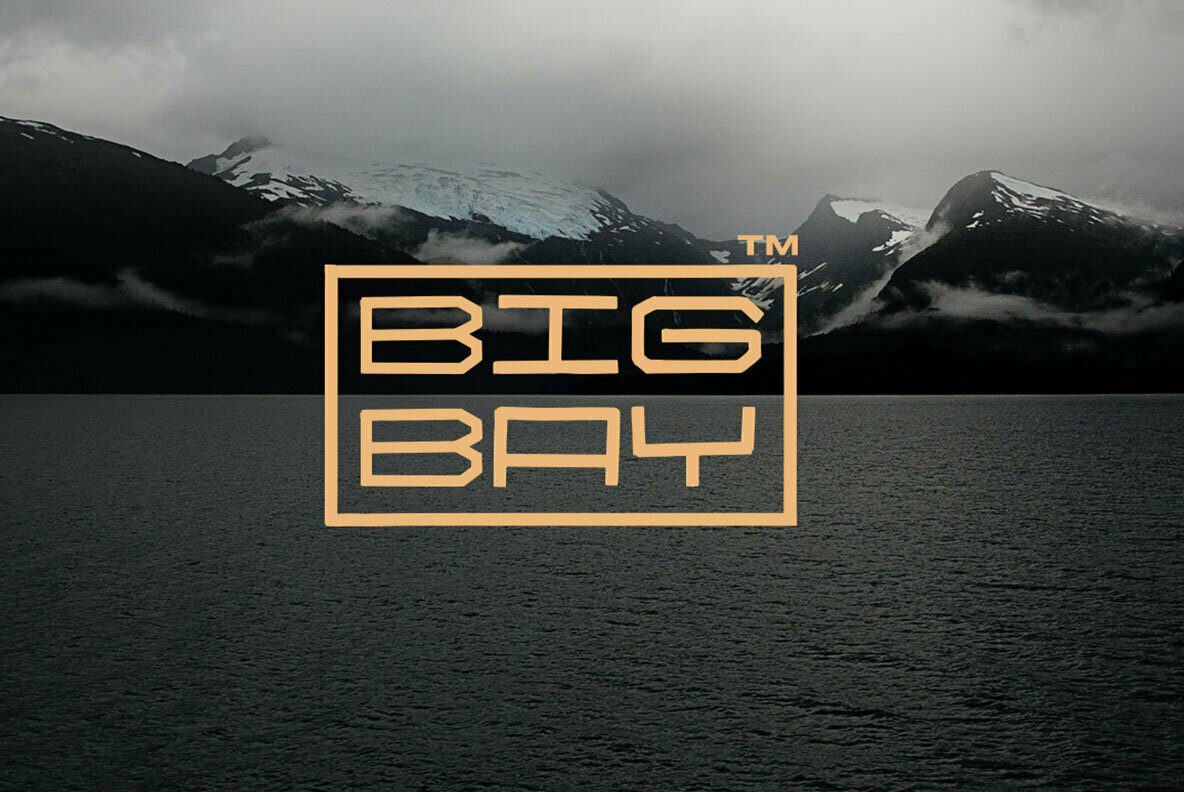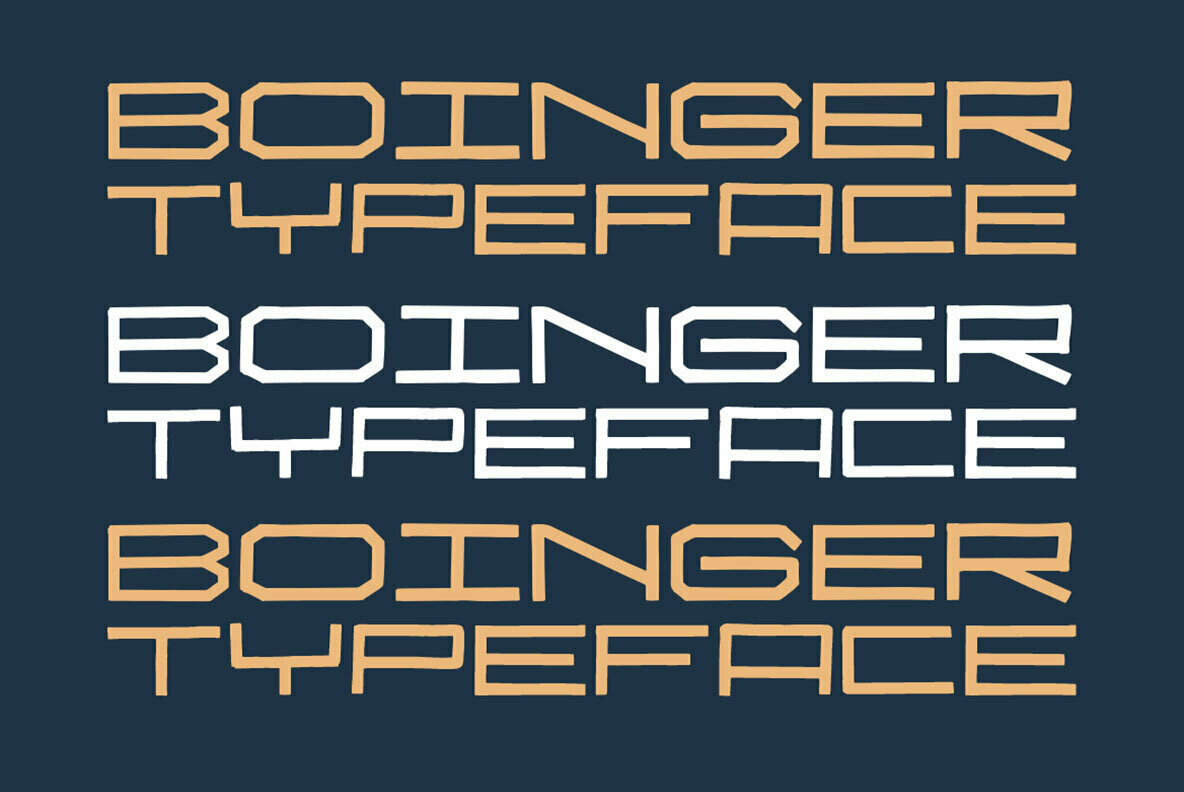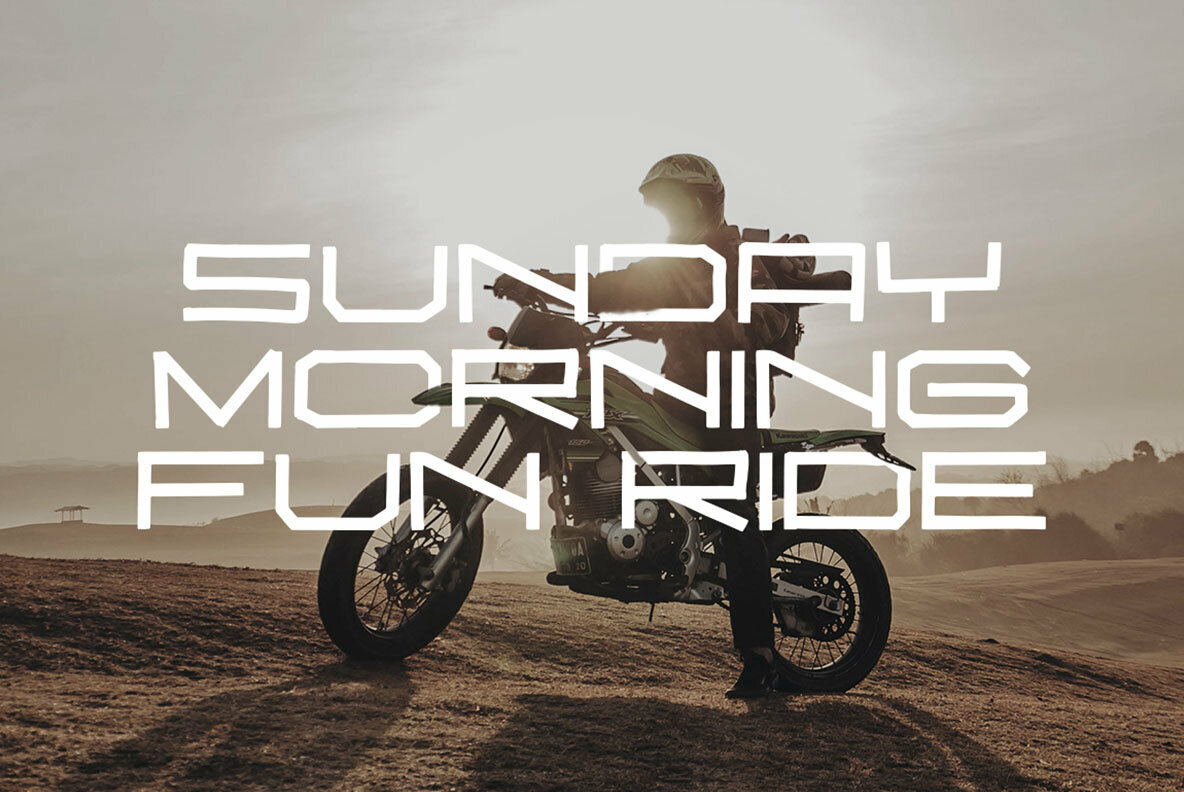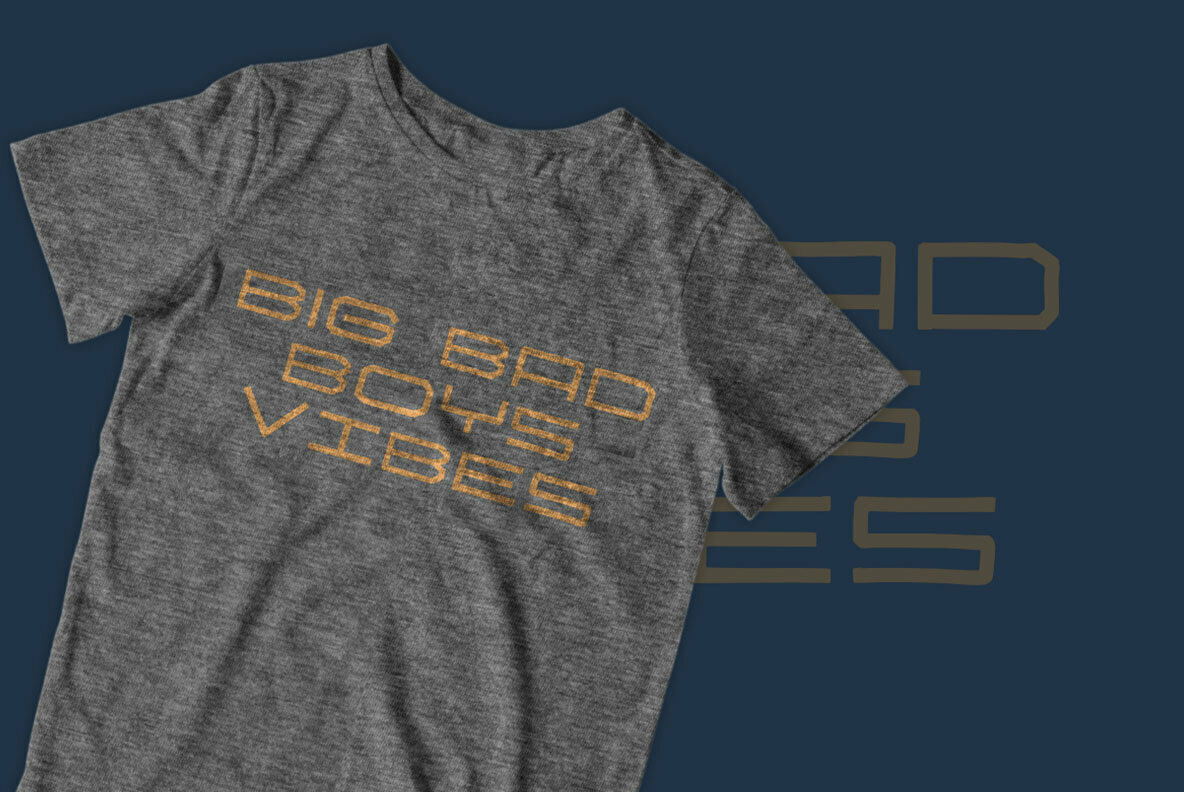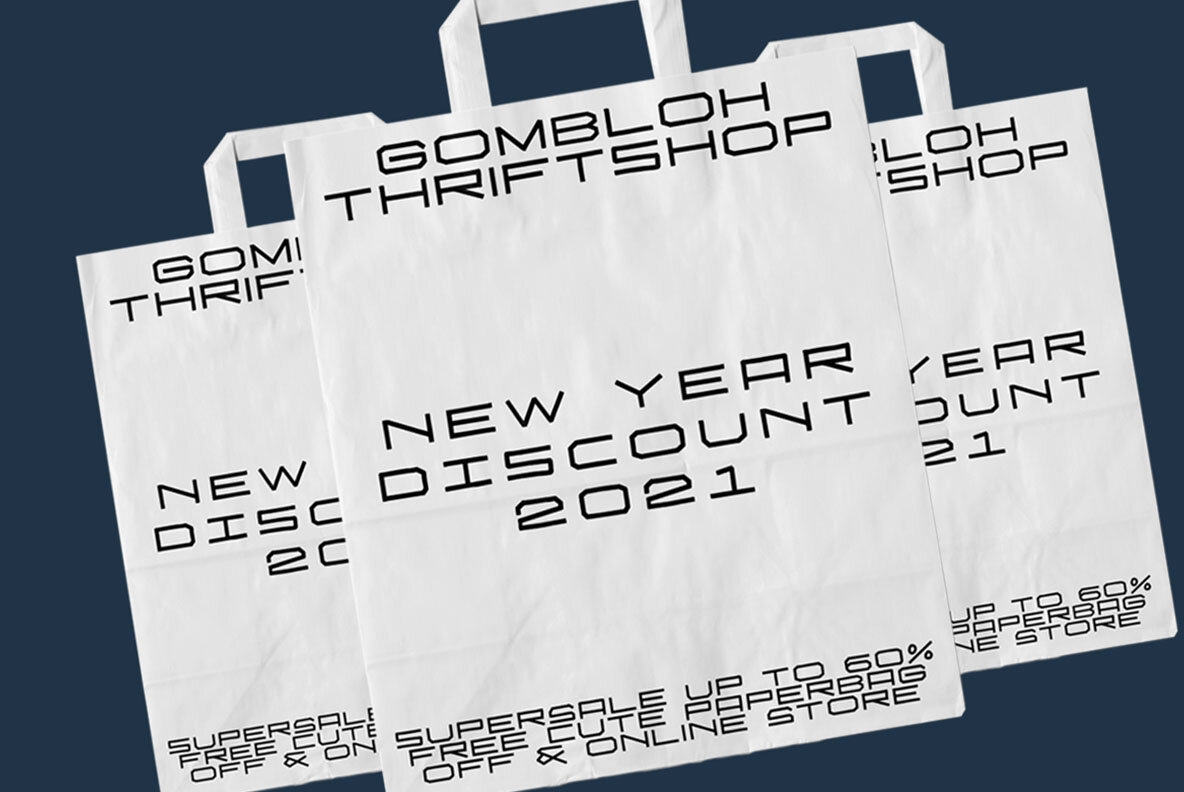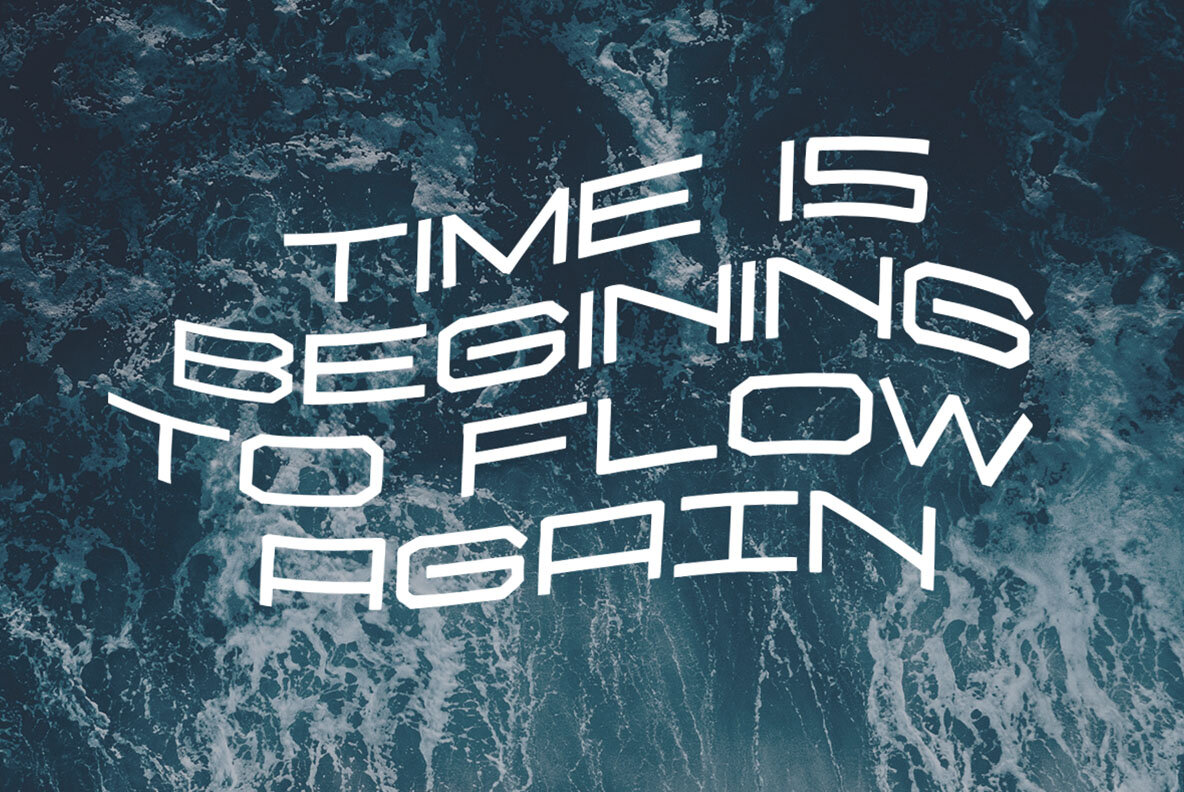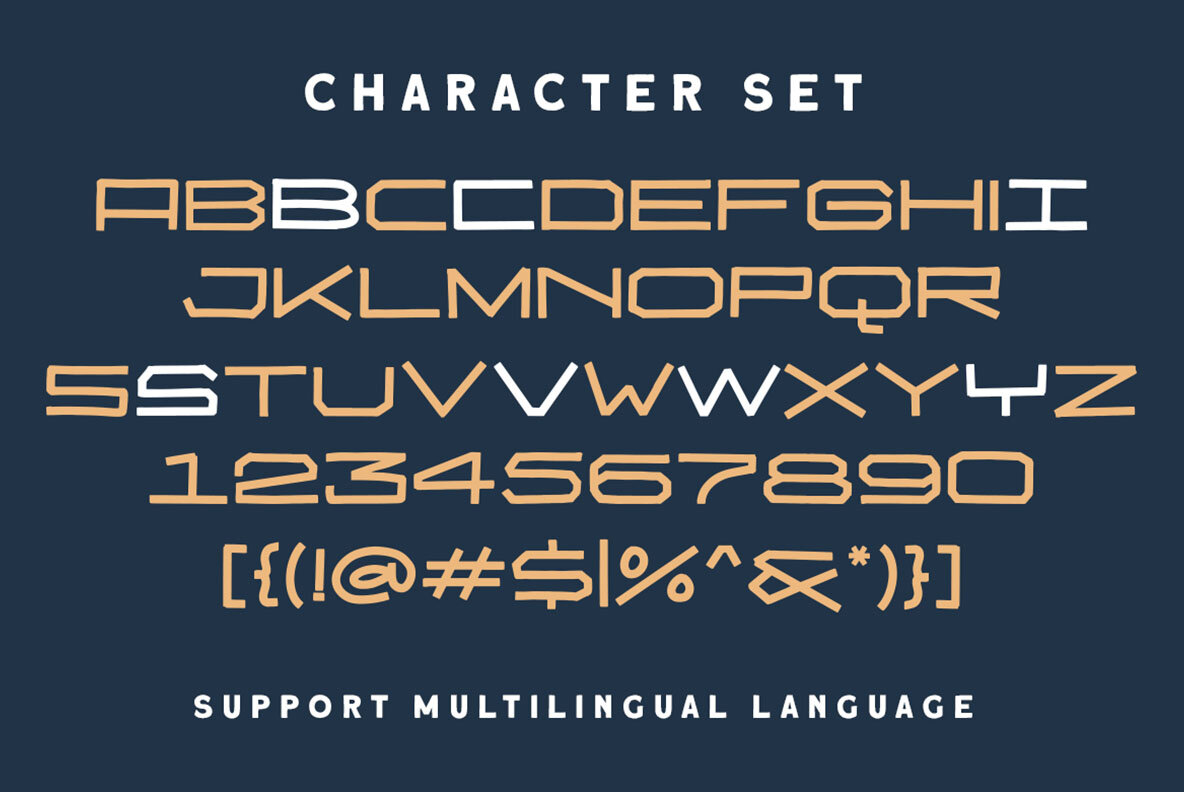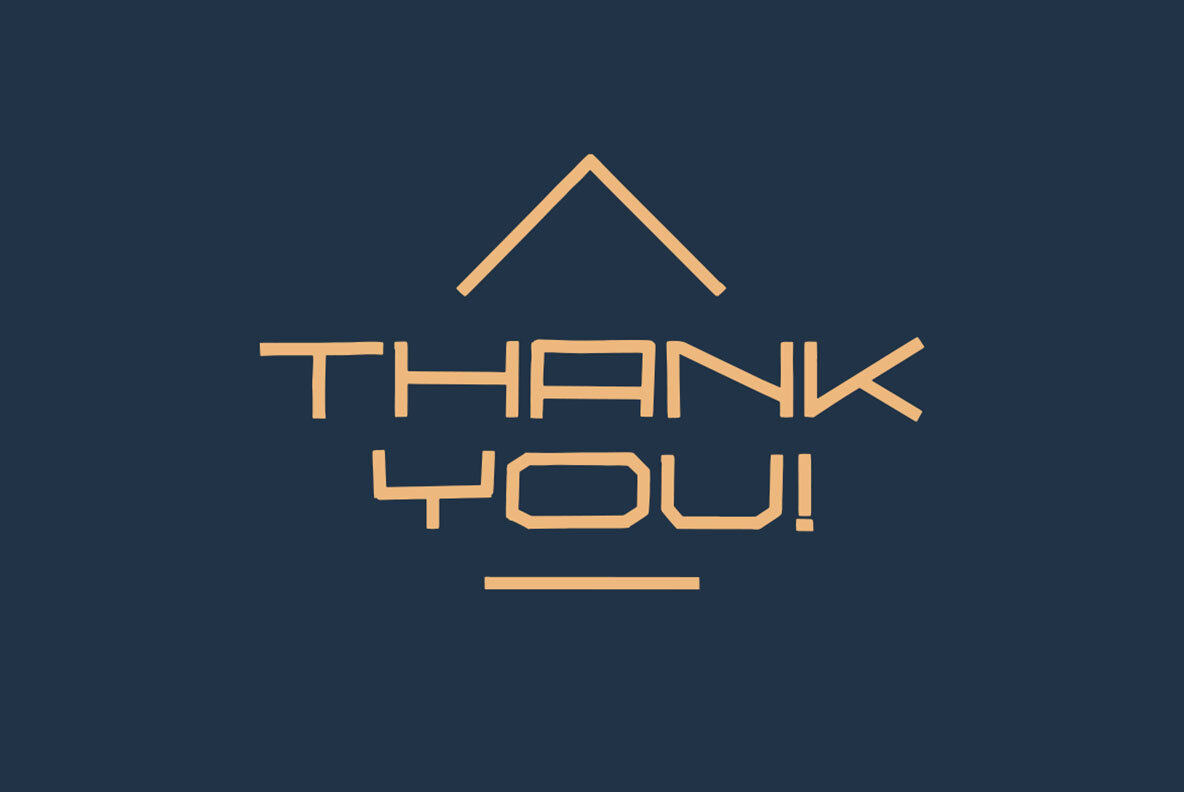
Boinger Font
Boinger Regular
Boinger captures attention effortlessly, offering a bold presence that excels in titles, headlines, and logos. Its versatility extends to a myriad of formal applications such as invitations, magazines, labels, and packaging. Whether in fashion or stationery, Boinger maintains its impactful aesthetic.Boinger: An Expanded Typeface for Diverse Applications